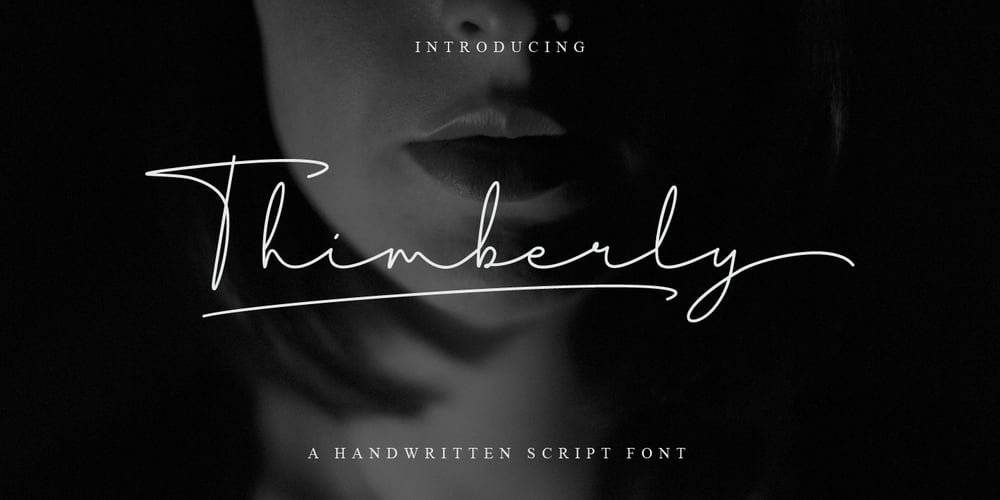
Thimberly Font Family was designed by Febrianto Yuwono and published by Febri Creative. Thimberly contains 1 styles and family package options. Thimberly is a modern and awesome handwriting font with extraordinary charm. This will change any design idea to be beautiful and perfect! Thimberly can be used for a logo, branding, or just writing which you can combine into great designs. It has multi-lingual support. Accessible in the Adobe Illustrator, Adobe Photoshop, Adobe InDesign, CorelDraw, even work on Microsoft Word.